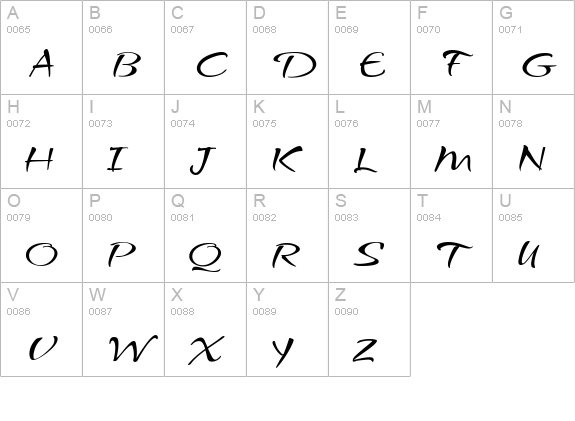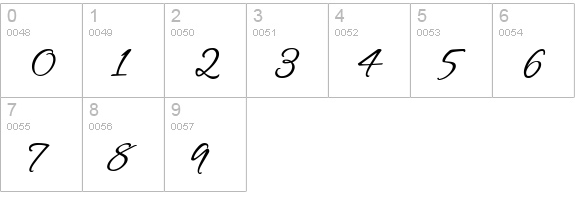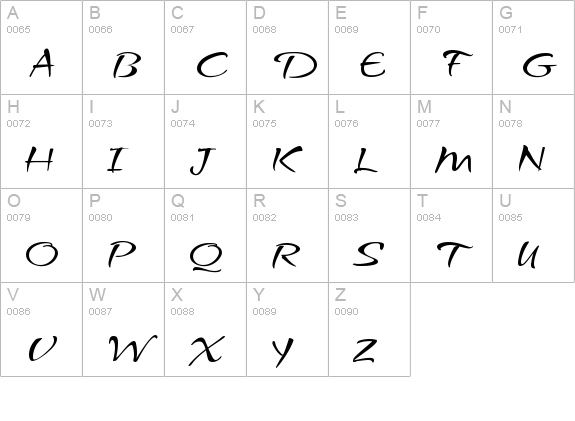
GrechenFuemenROB Font Details
GrechenFuemenROB is a stunning display font that radiates elegance and sophistication. Its intricate details and unique design make it a perfect choice for projects that require a touch of class and style. The sharp lines and bold strokes of this font command attention and give any text a modern edge. What sets GrechenFuemenROB apart is not just its striking appearance, but also the fact that it is completely free to download. You can easily access this font at FontsMarket.com, where it is available for download without any cost. Whether you are working on a personal project or a professional design, GrechenFuemenROB is a versatile font that will elevate your work to the next level. Don't miss out on the opportunity to add this exceptional font to your collection today!